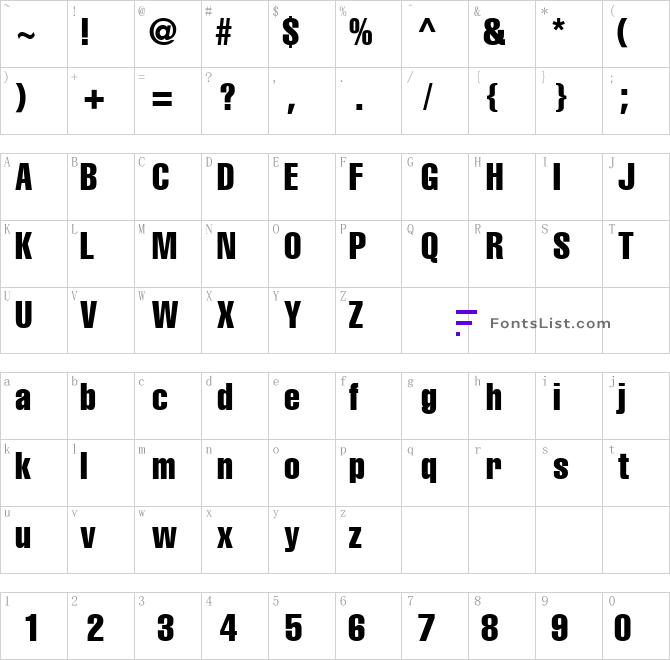
- Font Name:AG Letterica Compr-Plain
AG-Letterica-Compr-Plain-Medium.ttf is a very beautiful artistic font, AG-Letterica-Compr-Plain-Medium.ttf is widely used in the design and printing of various books and pictures,AG-Letterica-Compr-Plain-Medium.ttf has a strong visual impact,AG-Letterica-Compr-Plain-Medium.ttf is a commonly used font in newspapers, magazines and books, and is used in posters, e-commerce Poster design, store design, logo design, font design and other fields.AG-Letterica-Compr-Plain-Medium.